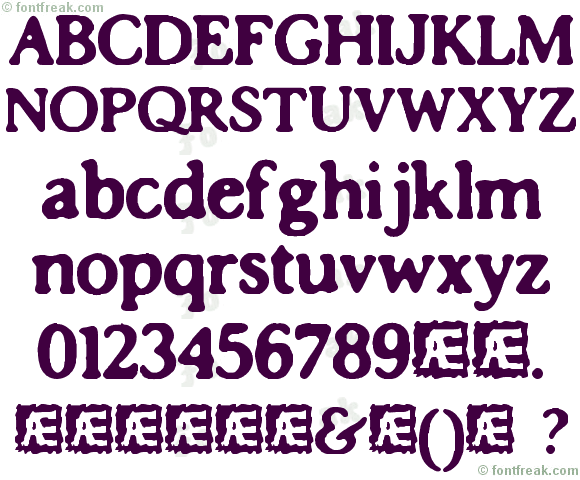
Impossibilium (BRK)
About Impossibilium
Impossibilium by Ænigma Fonts is a captivating display font that blends whimsical charm with a modern aesthetic. This unique typeface is characterized by its bold and playful letterforms, making it an excellent choice for a variety of creative projects. The font features a medium stroke weight, with rounded edges that create a friendly and approachable look. Its moderate contrast enhances legibility, while the slightly irregular spacing adds to its artistic flair, giving it a distinctive personality that stands out.
Impossibilium is particularly well-suited for use in wedding invitations, where its enchanting style can evoke a sense of joy and celebration. Additionally, it works beautifully for movie posters, capturing attention with its eye-catching design. Restaurant menus can benefit from its inviting nature, making dishes appear more appealing and enhancing the overall dining experience. Content creators will also find this font ideal for social media graphics and branding materials, as it communicates a sense of creativity and fun.
What truly sets Impossibilium apart is its ability to blend functionality with artistic expression. The font's playful yet legible style allows it to be both eye-catching and practical, making it a versatile choice for various applications. For those seeking a font that combines charm and usability, the Impossibilium font free download is a must-have addition to any designer's toolkit.